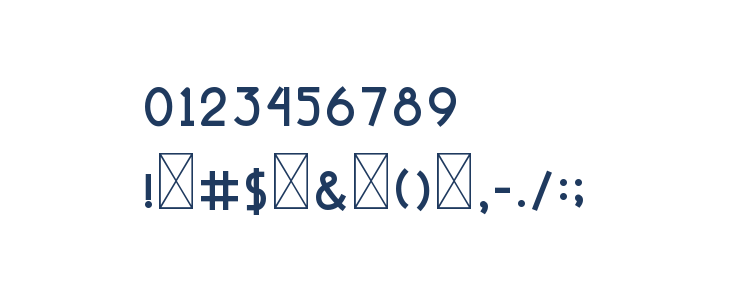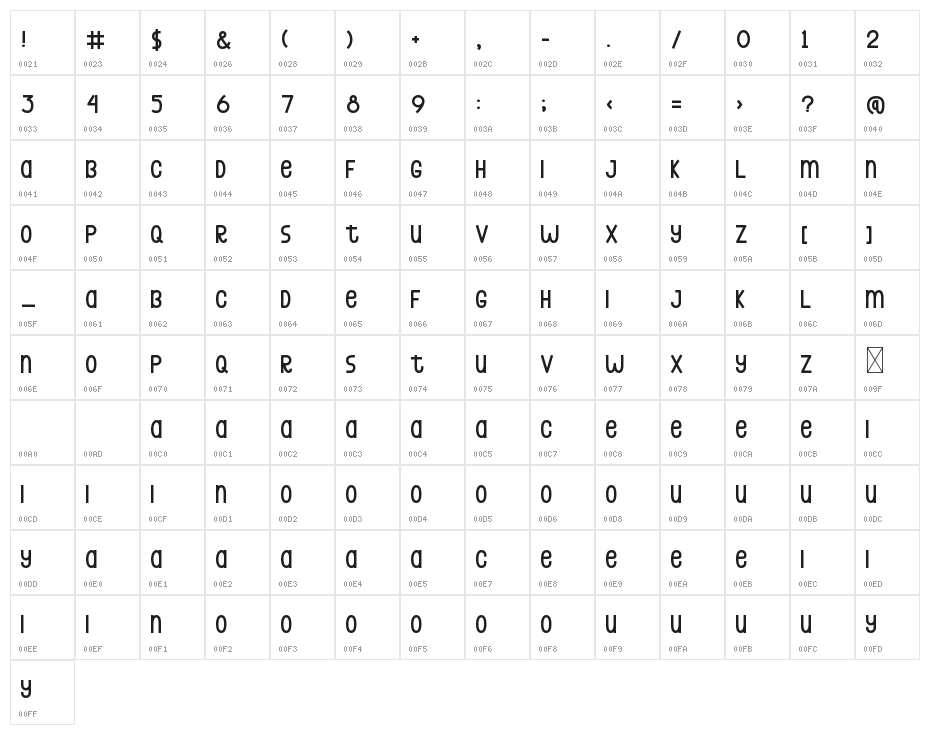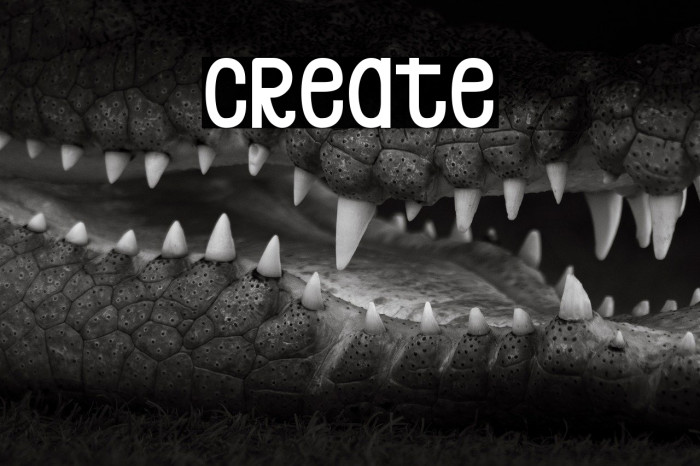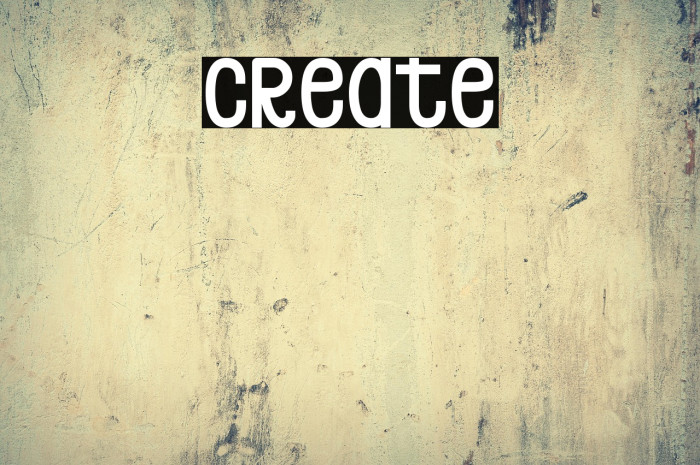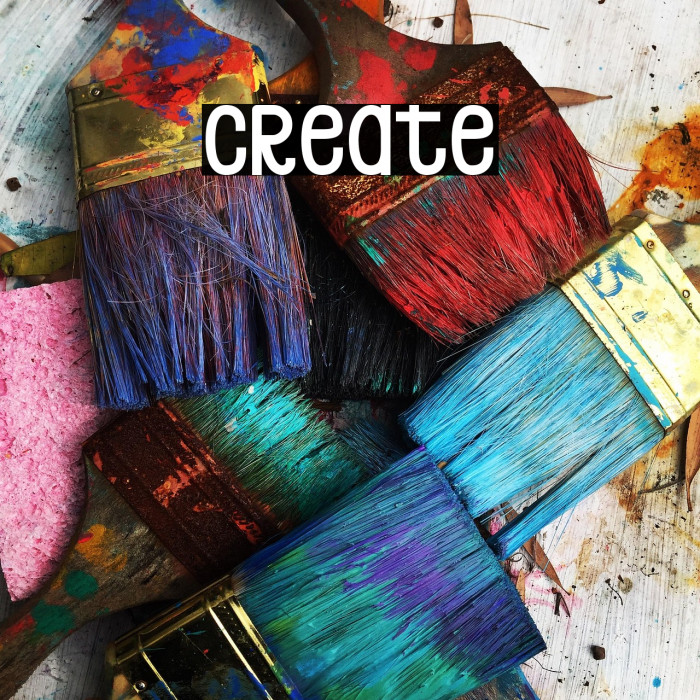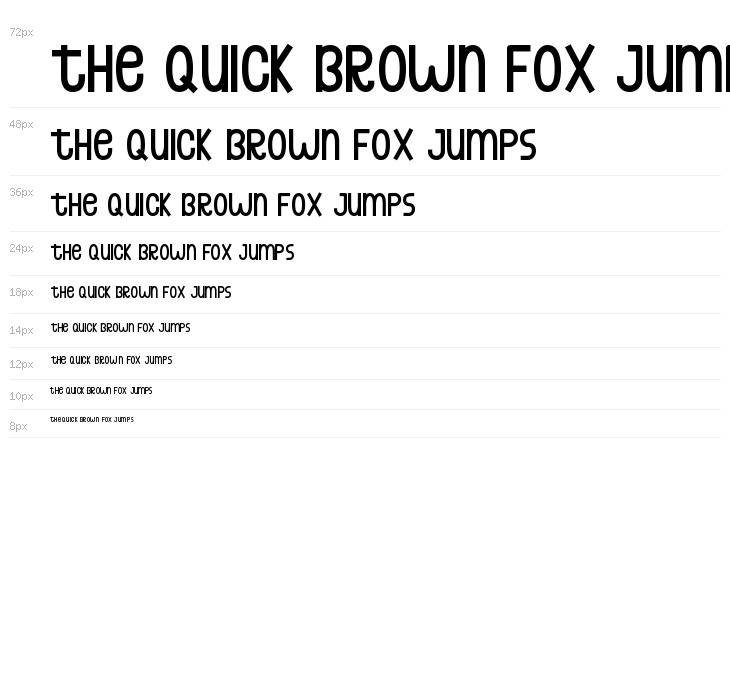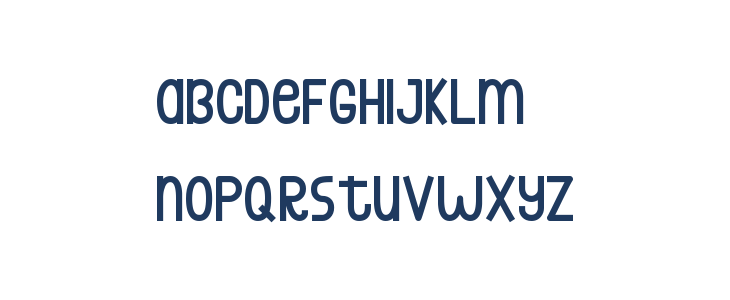
Create Font
Create Description
This font features a bold and rounded design, characterized by its smooth curves and uniform stroke width. The letters are evenly spaced, providing a clean and modern appearance. The uppercase and lowercase letters maintain a consistent style, with rounded edges that soften the overall look. The numerals and special characters follow the same design principles, ensuring a cohesive appearance across all characters. This font is versatile, suitable for both digital and print media, and can be used to convey a friendly and approachable tone.
| Use Case | Headlines, Logos, Branding |
| Proposed Projects | Ideal for branding, advertising, children's books, and user-friendly interfaces. |